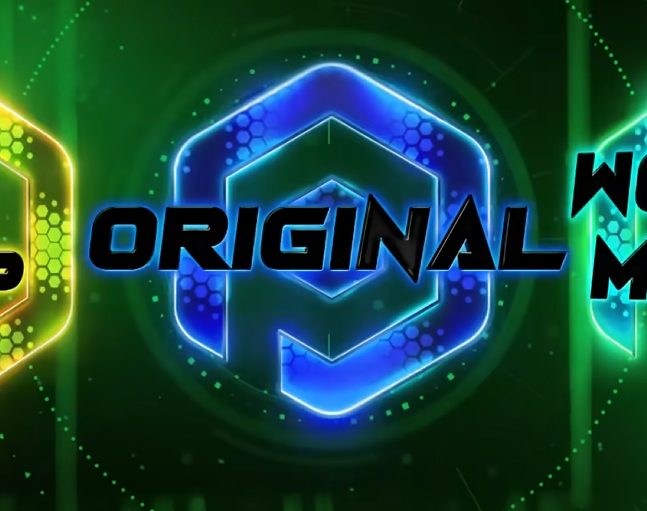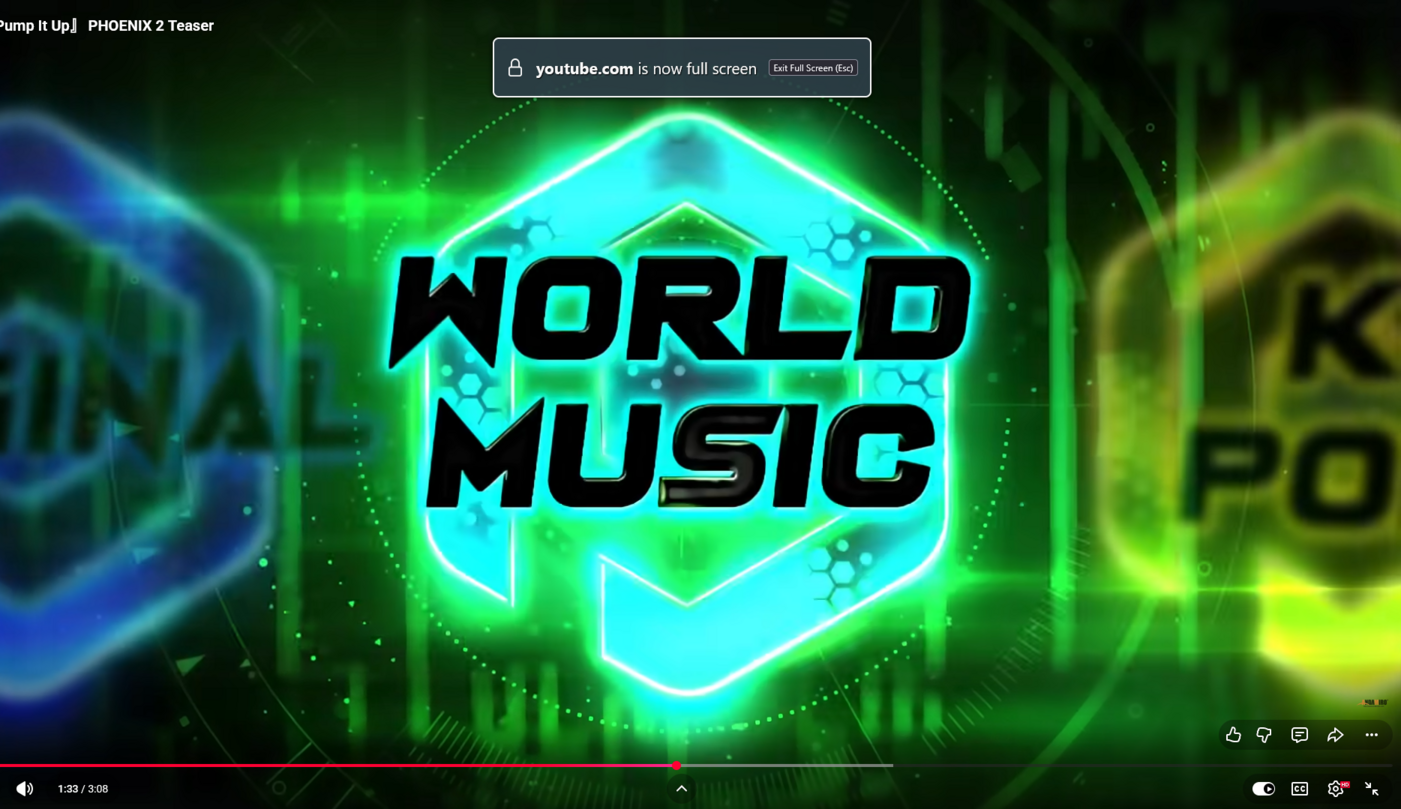
Trying to find this font - In PIU Phoenix 2 UI
The typeface above was the only one that I couldn’t definitively ID. Rumutocu (artificially italicized) is similar, and because that W and M appear in a number of their typefaces I surmised it was another Chequered Ink design that just isn’t in any matching database.
Gorehand was another Checkered Ink option I believe I referenced in the now-removed post.